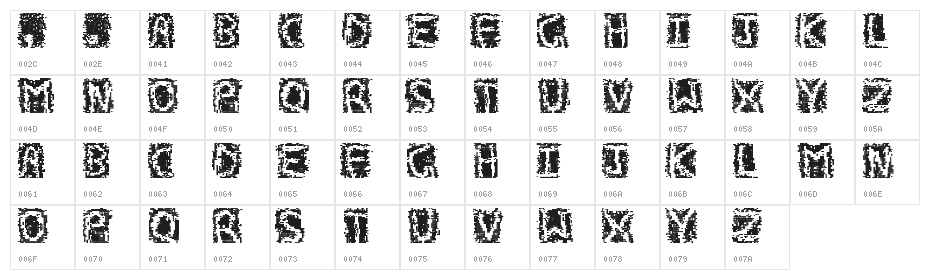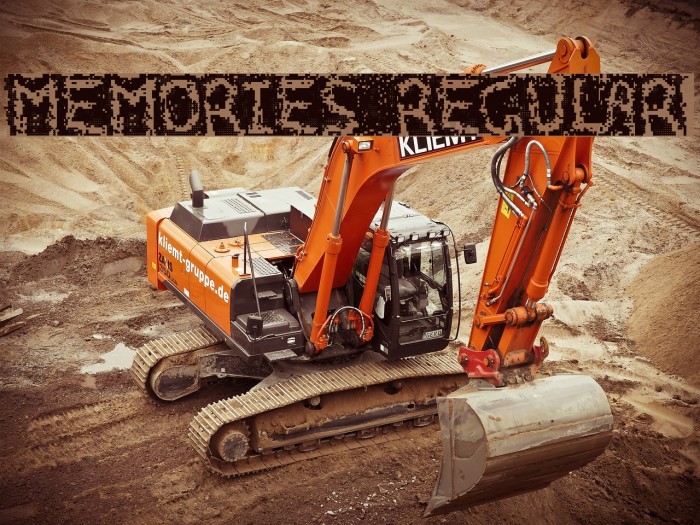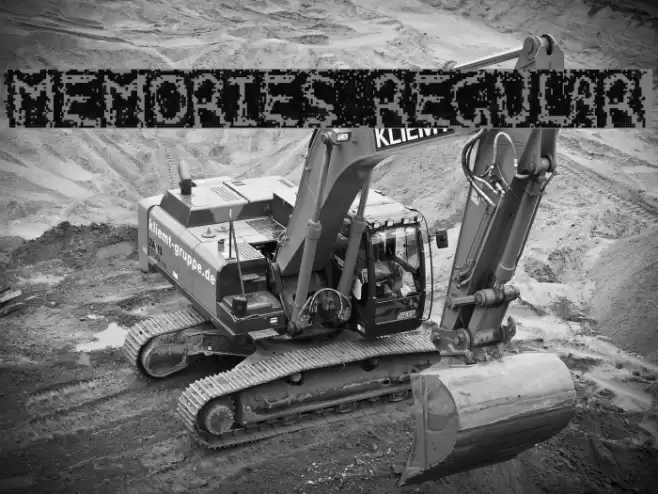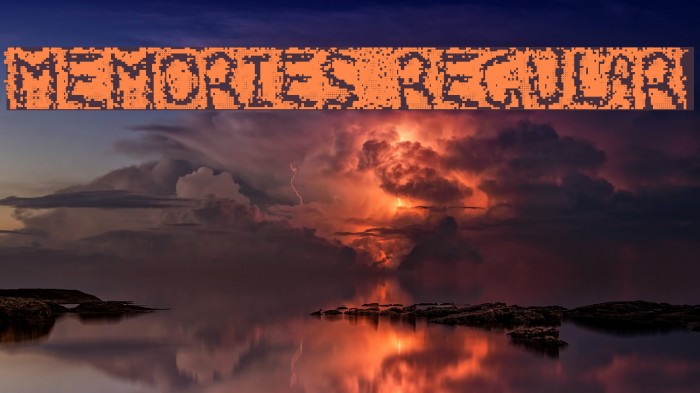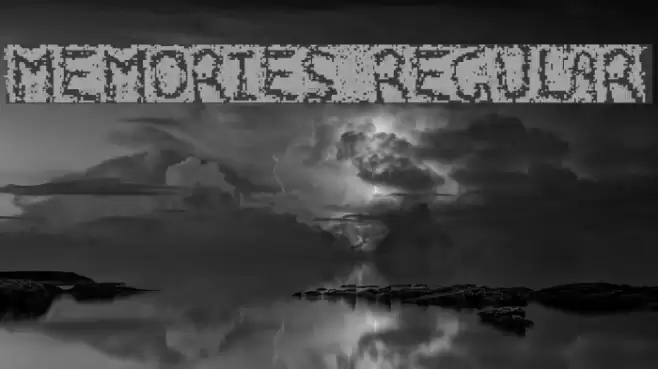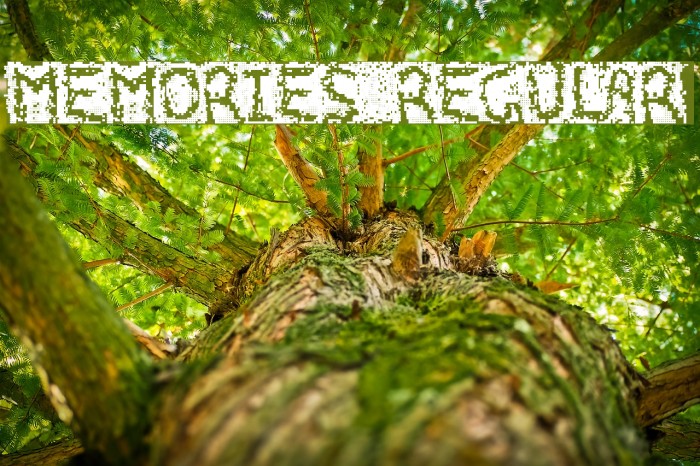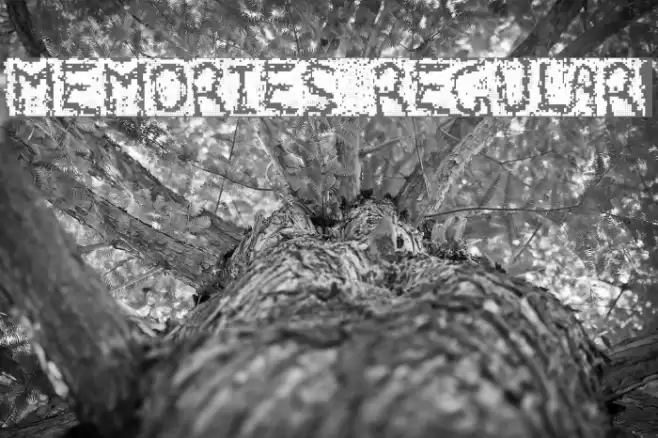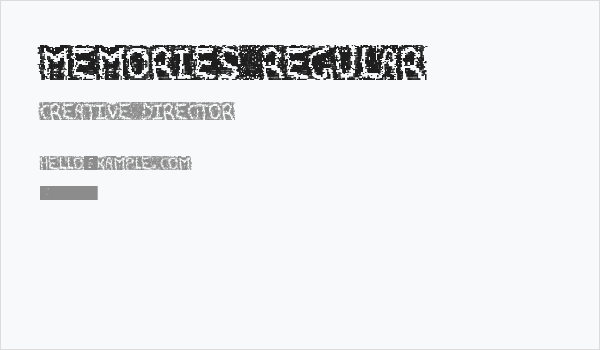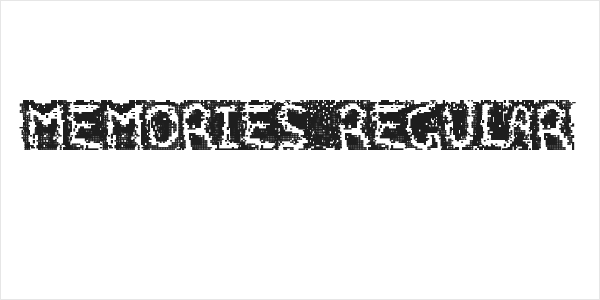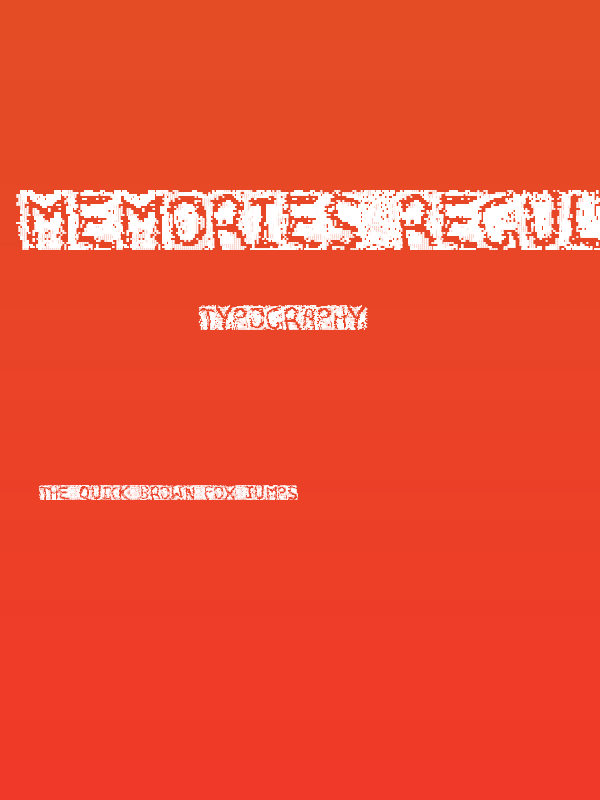
Memories Regular Font
Memories Regular Description
This font features a distressed, grunge style with a textured appearance that gives it a worn, vintage feel. Each character is filled with a pattern of irregular dots and speckles, creating a unique, weathered look. The uppercase and lowercase letters maintain a consistent style, with bold strokes and a slightly condensed form. The numbers and special characters follow the same design, ensuring uniformity across all glyphs. This font is ideal for projects that require a rugged, edgy aesthetic, such as posters, album covers, or themed event materials.
| Proposed Projects | Ideal for posters, album covers, themed events, and any design needing a rugged, edgy aesthetic. |